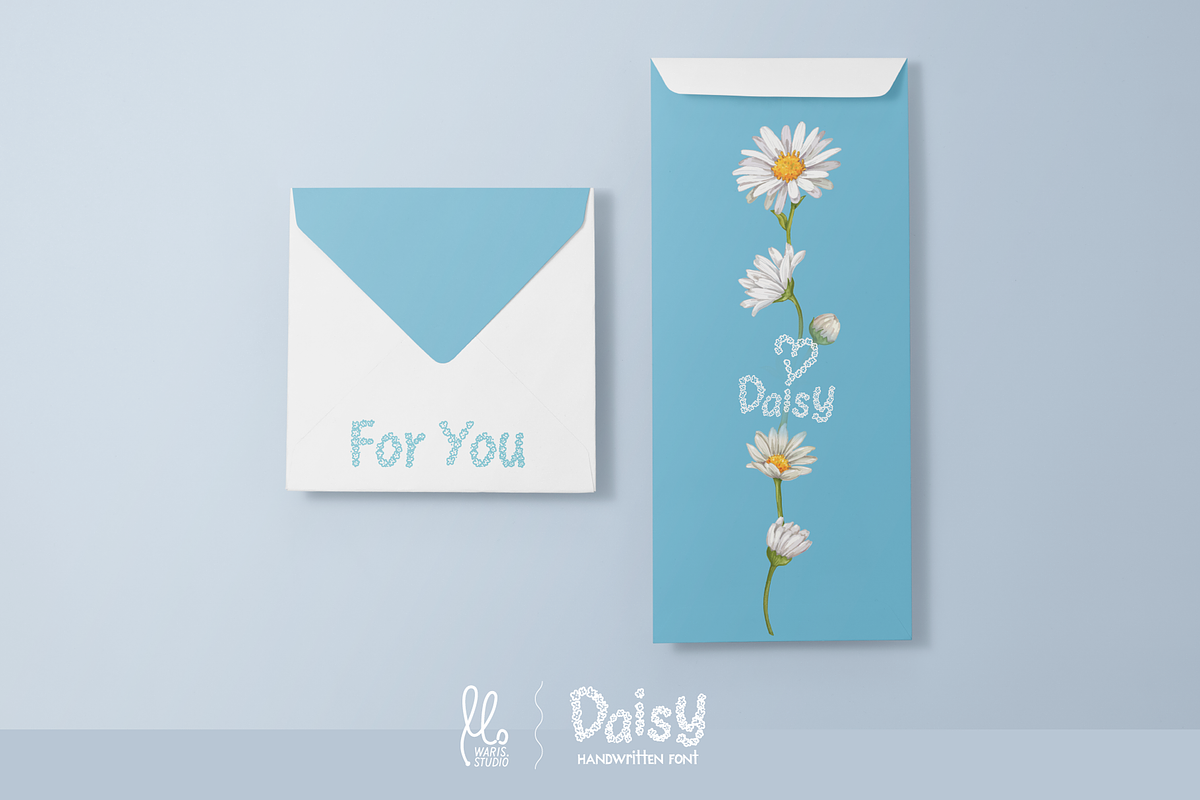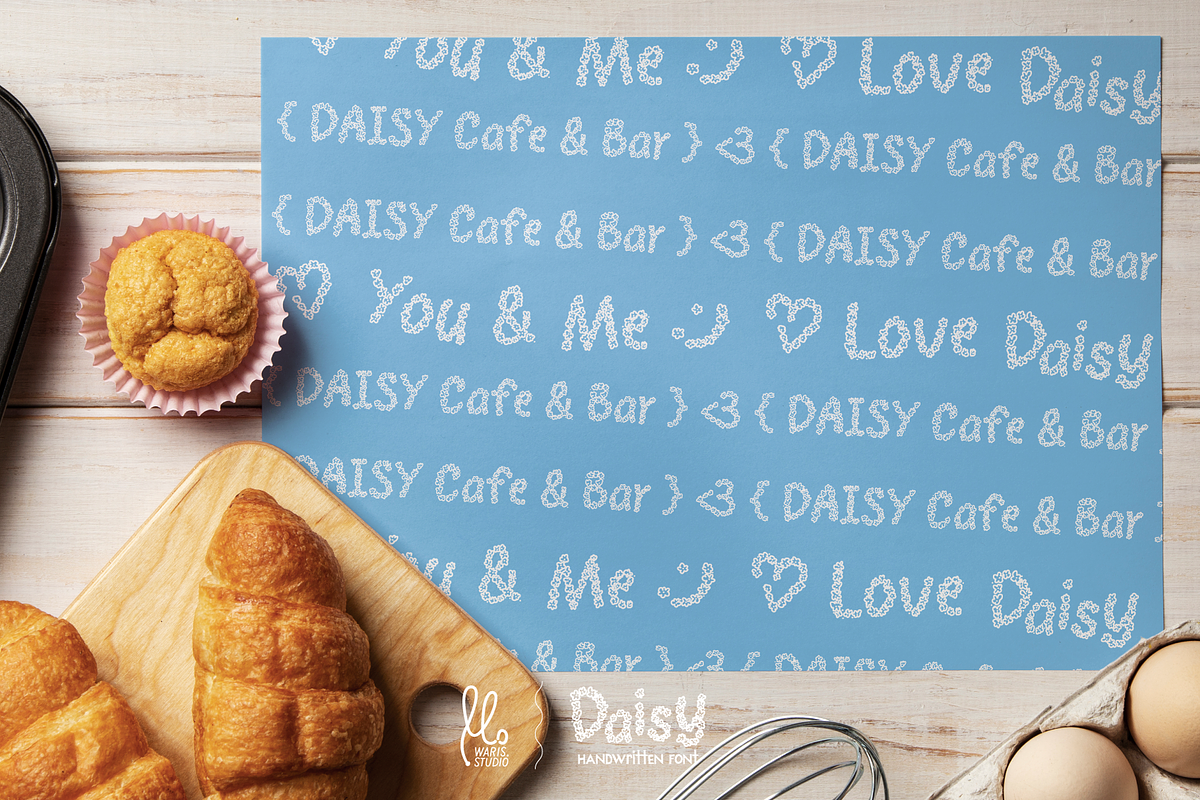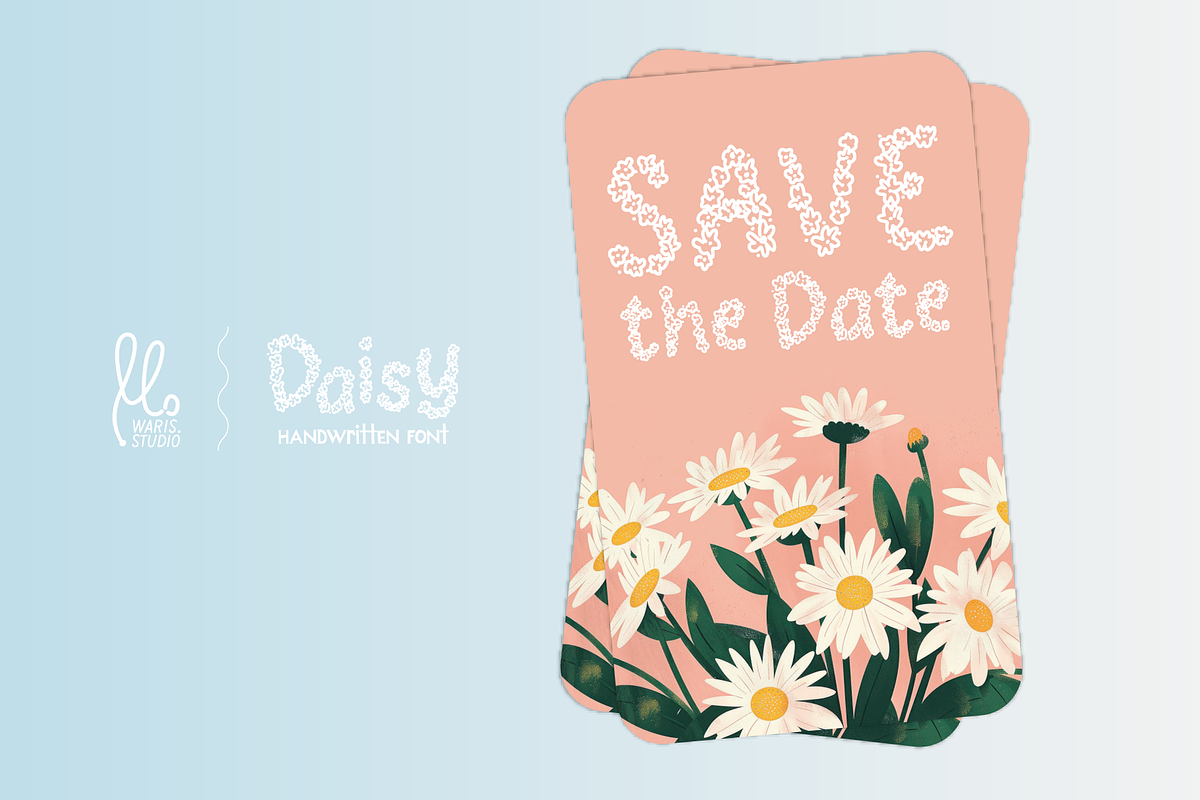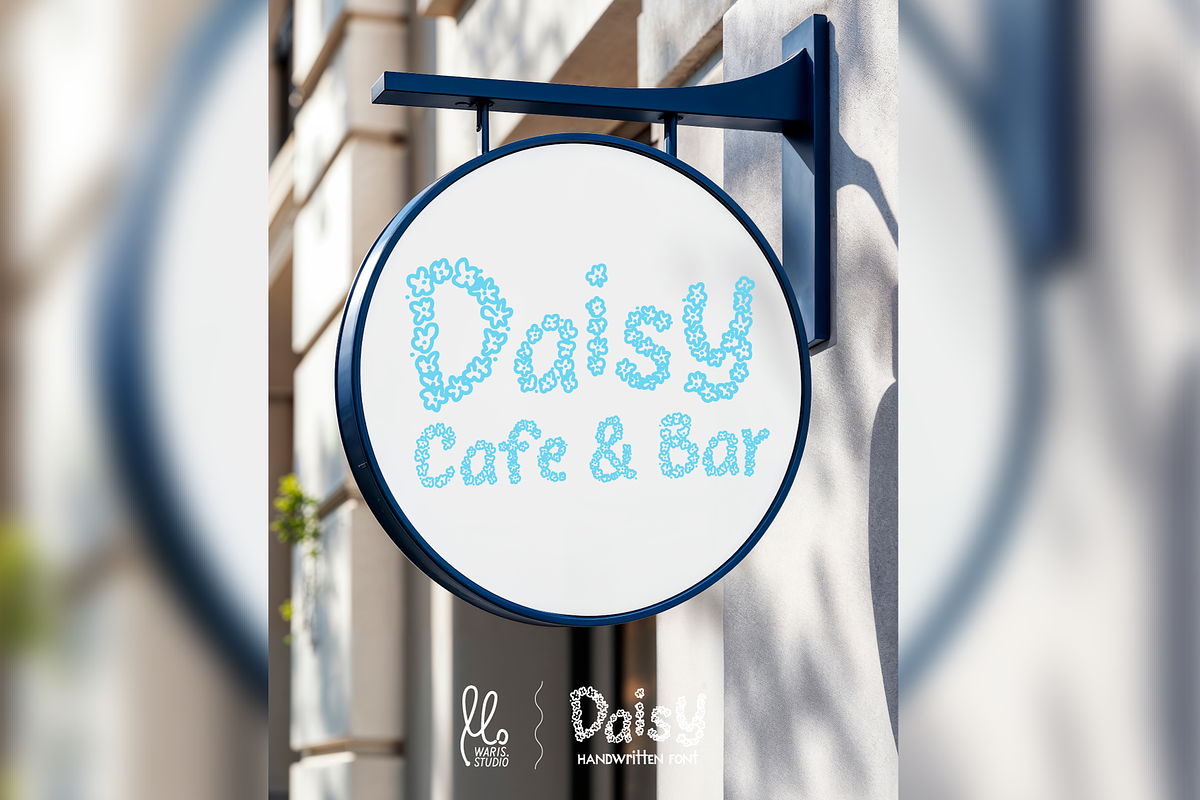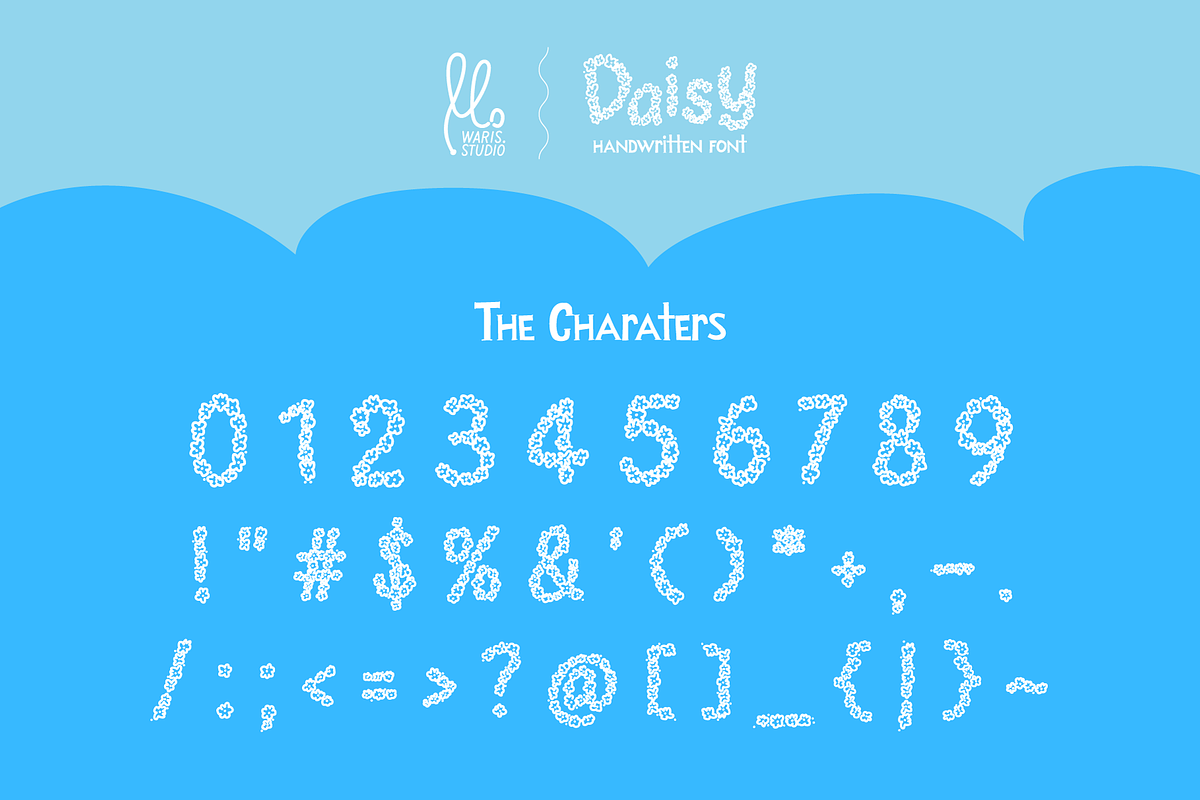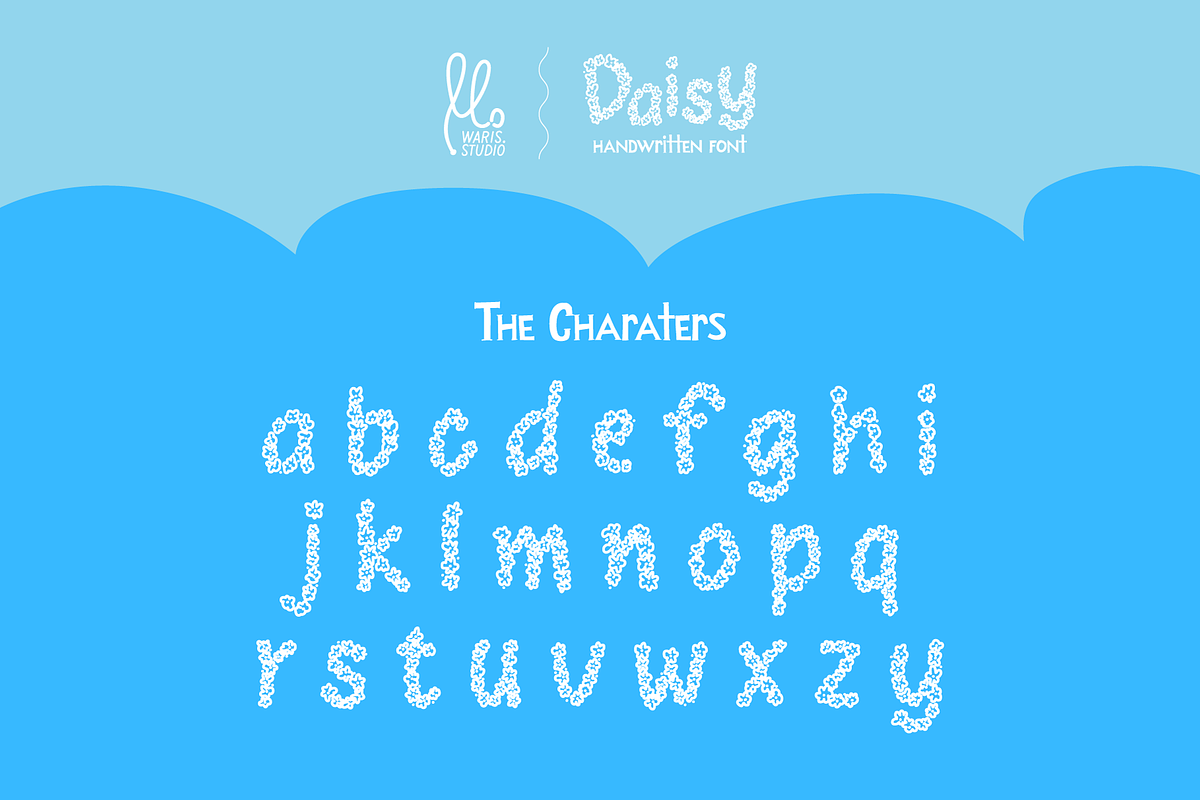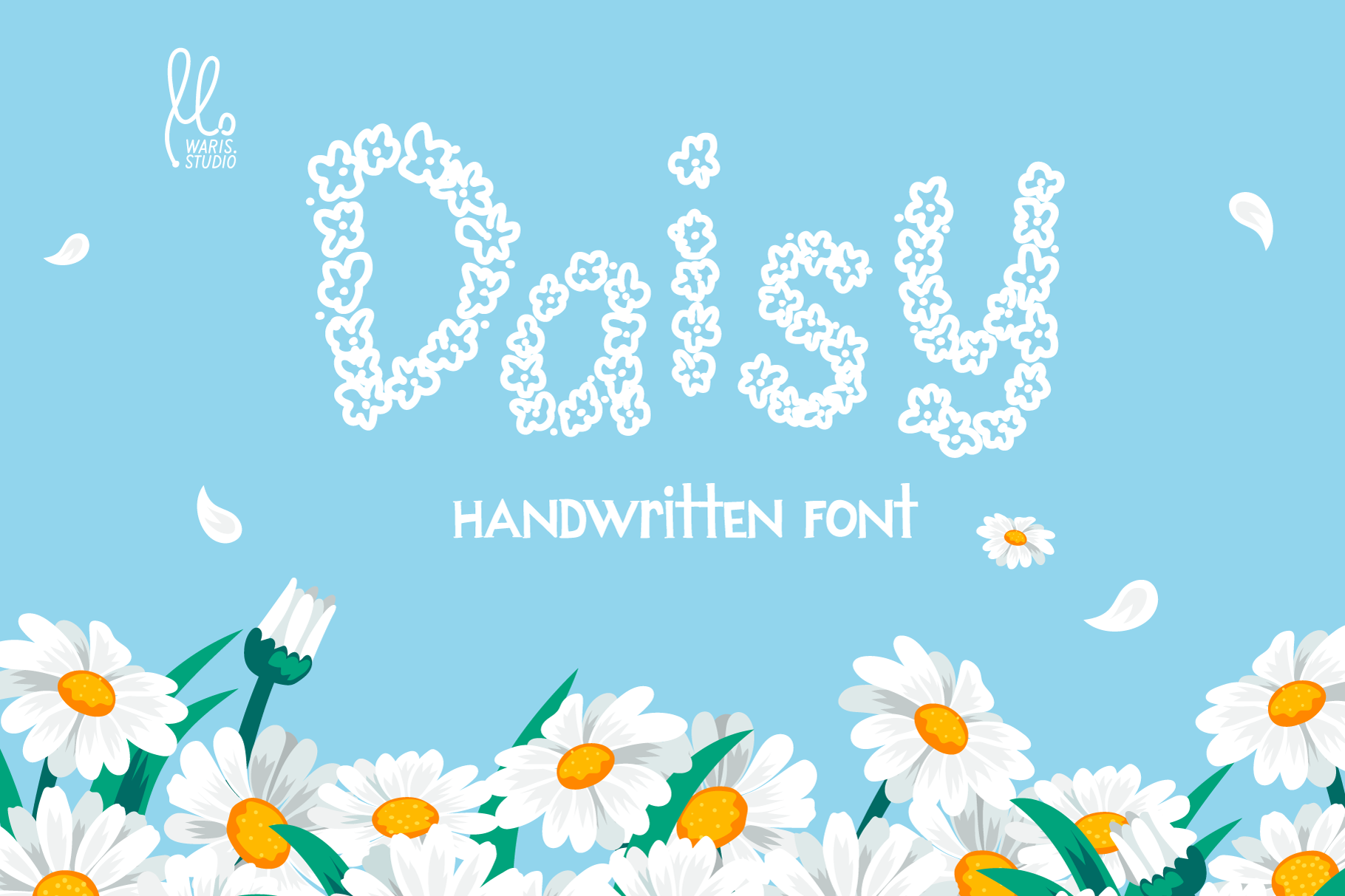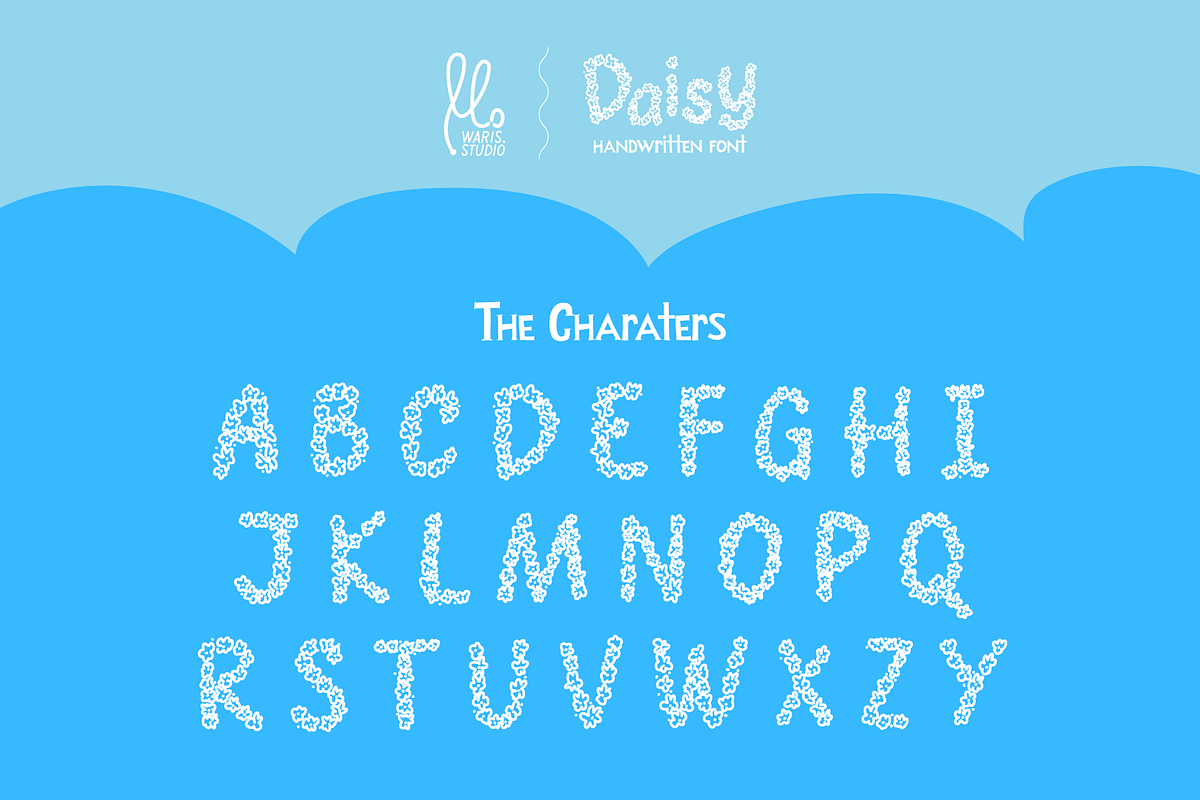
Daisy Handwritten Font
🌼 Introducing Daisy Handwritten Font - Your New Favorite Floral Script! 🌼
Transform your designs with the whimsical charm of Daisy, a delightful handwritten font adorned with delicate flower details. Perfect for adding a touch of natural elegance and playful cuteness to all your creative projects!
What Makes Daisy Font So Special? 🌼 Unique Floral Details: Each letter of Daisy is beautifully crafted with charming flower elements, making your text truly blossom and stand out from ordinary script fonts. 🌼 Authentic Handwritten Feel: With its natural flow and charming irregularities, Daisy captures the warmth and personal touch of genuine handwriting. 🌼 Versatile & Easy to Use: Whether you're a seasoned designer or just starting out, this font is incredibly user-friendly and compatible with a wide range of popular design software like Procreate and Canva.
Perfect For: 🌼Invitations & Cards, Branding & Logos, Digital Art & Social Media, Printable Art & Quotes, and Kids' Designs.